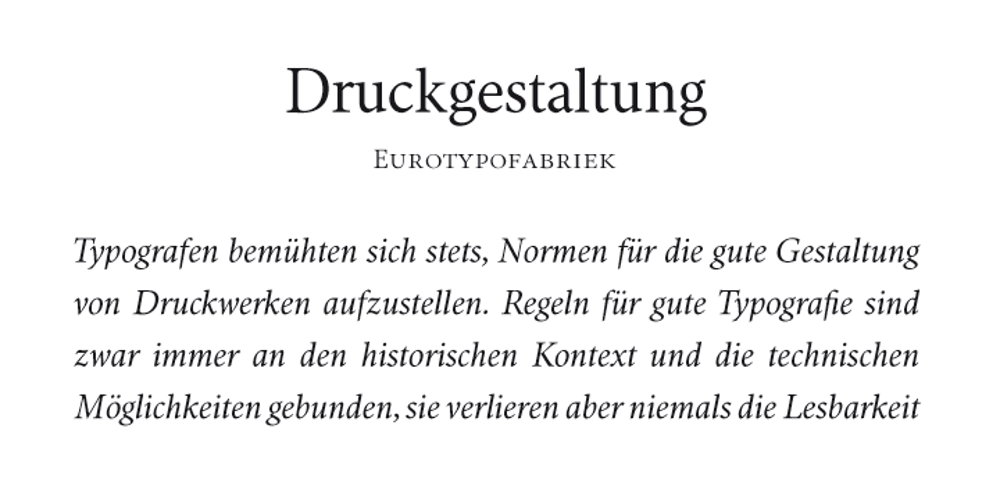
Antium Font Family was designed by Olcar Alcaide and published by Eurotypo. Antium contains 12 styles and family package options. Antium is inspired on Augustus capital letters and venetians’s typeface styles. One of the most peculiar features that define these fonts are their predominant height of x” as well as to ascenders and descenders strokes particularly shorts. These fonts offers good legibility in small sizes, for use in editorial design, newspapers and printed material. The strong personality of its glyphs is well suited also to headlines. Antinum (Anzio), formerly the capital of the Volscians until the Romans conquered it in 468 BC. Built on the mediterranean coast near Rome. A legend attributes its foundation to a son of Ulysses and Circe. Caligula and Nero were born there. During the early morning hours of 22 January 1944, troops of the Fifth Army swarmed ashore on a fifteen-mile stretch of Italian beach near the towns of Anzio and Nettuno.”